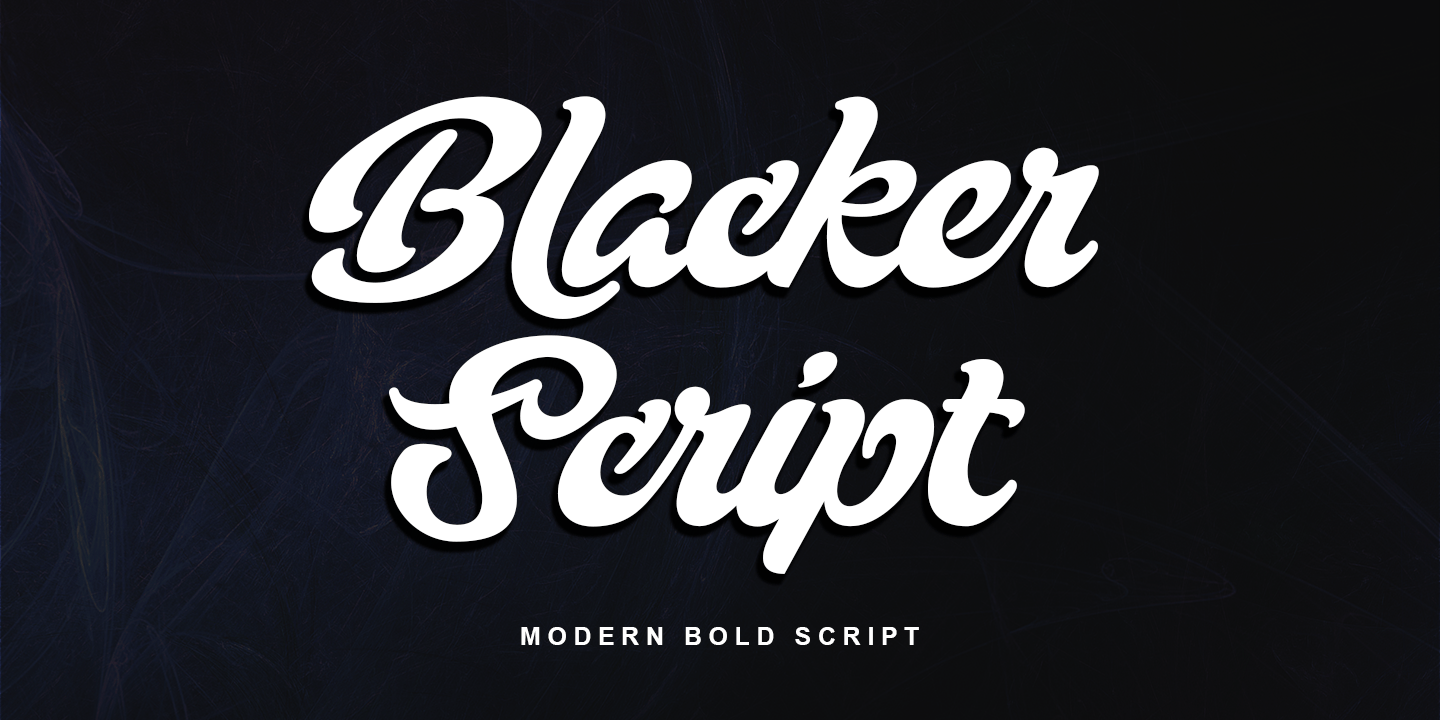
Blacker Script Font Free Download is a stylish and elegant script typeface that mimics natural handwriting with a modern twist. Ideal for wedding invitations, greeting cards, branding, packaging, and luxurious editorial projects.
What makes Blacker Script Font so exciting is its smooth, flowing strokes combined with delicate flourishes, creating a romantic and sophisticated feel. It adds a personal and artistic touch to any design.
The Blacker Script Font family includes Regular and Bold styles, offering flexibility for expressive and varied typography.
Whether you’re crafting heartfelt invitations, elegant logos, or premium packaging, Blacker Script Font Free Download brings charm and elegance to your projects. You can test it for free, but commercial use requires a license. Let Blacker Script make your designs truly unforgettable.